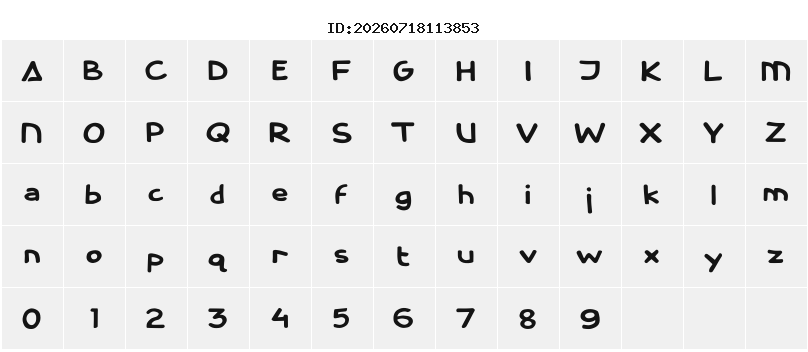
• Font Name: Cassini
• Font Style: bold
• Full Font Name: Cassini Marker
About Cassini.ttf
Cassini.ttf is a modern, elegant sans-serif font designed for ultimate readability and visual harmony. Perfect for branding, headlines, web design, and print materials.